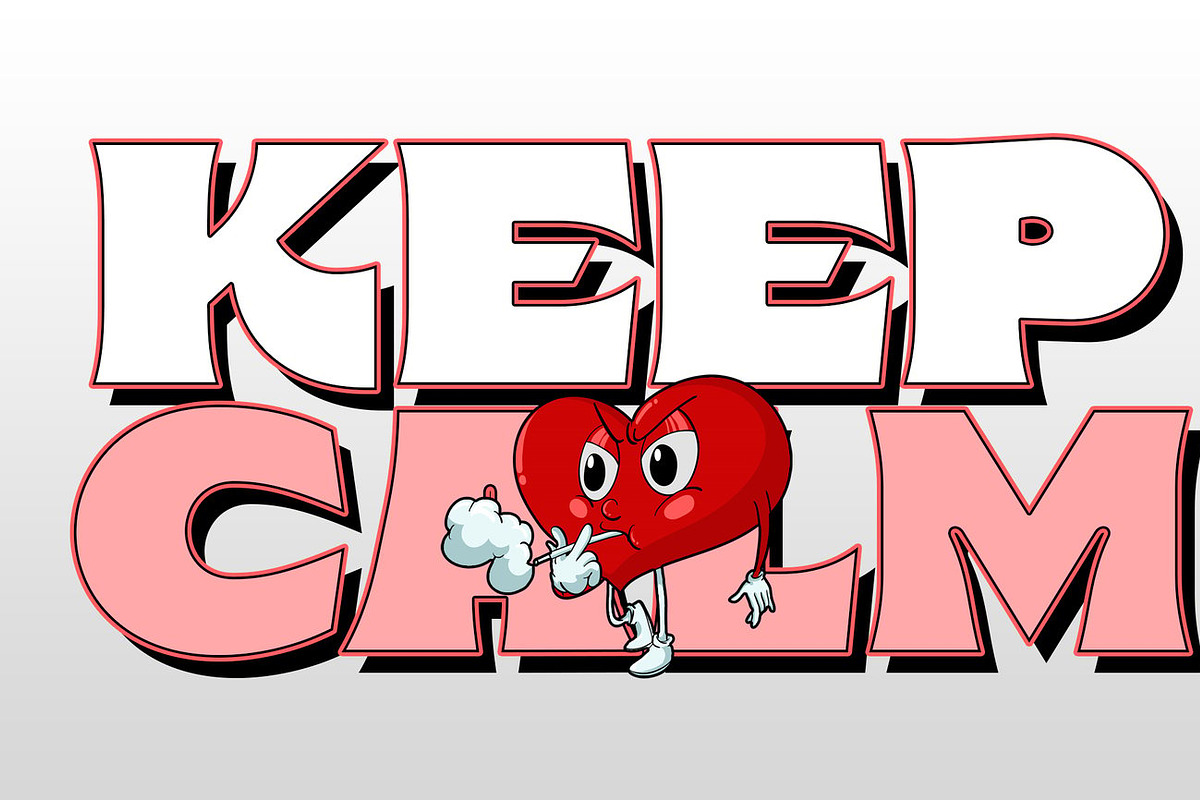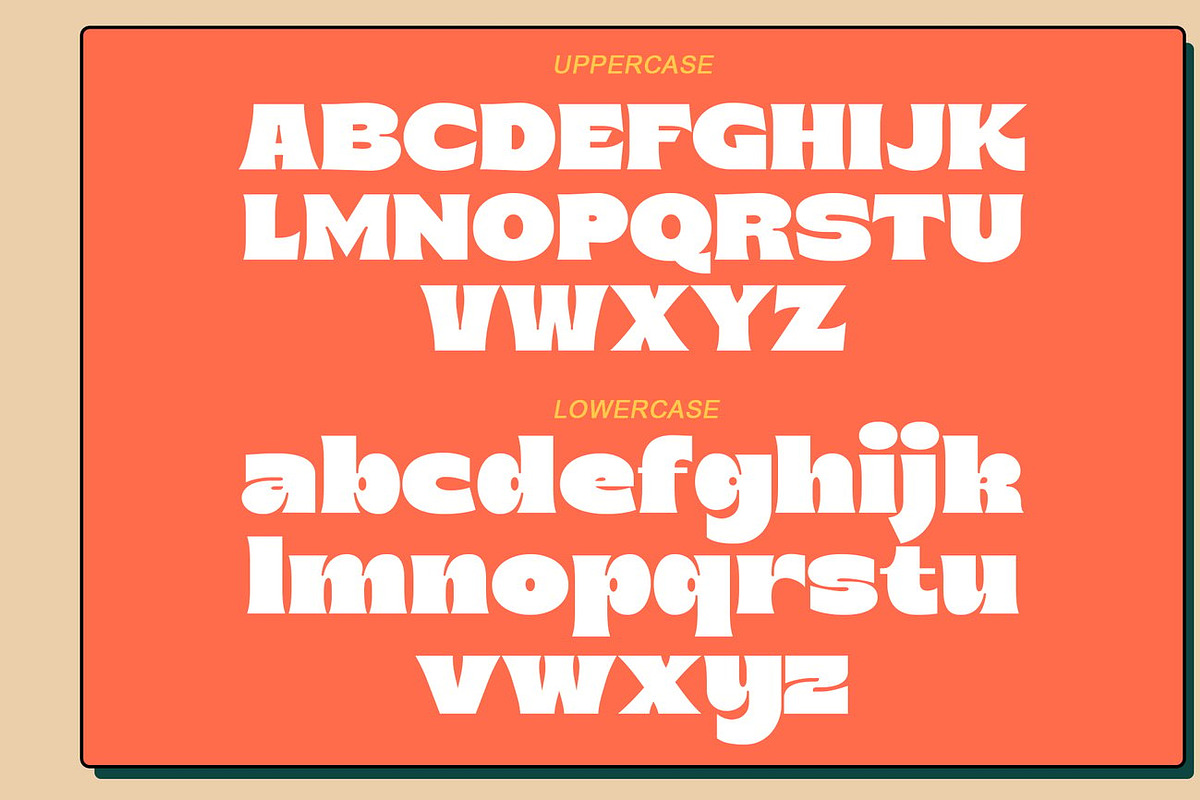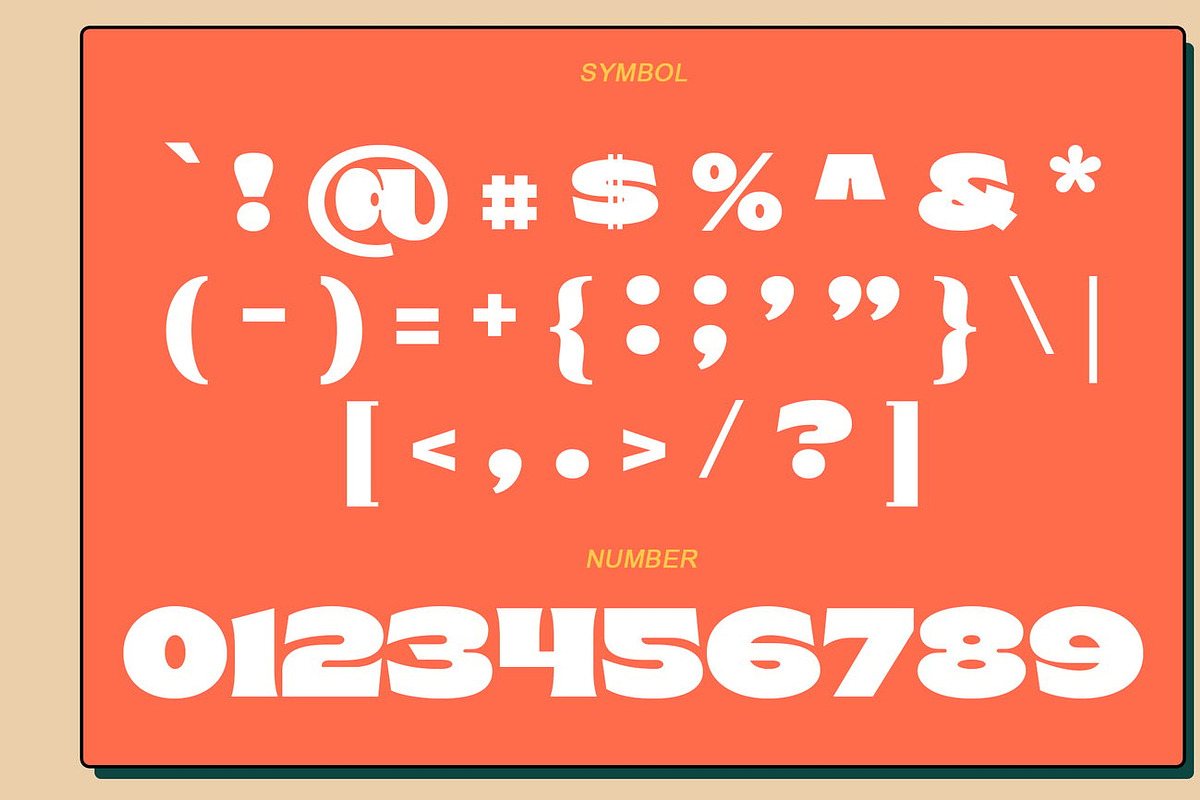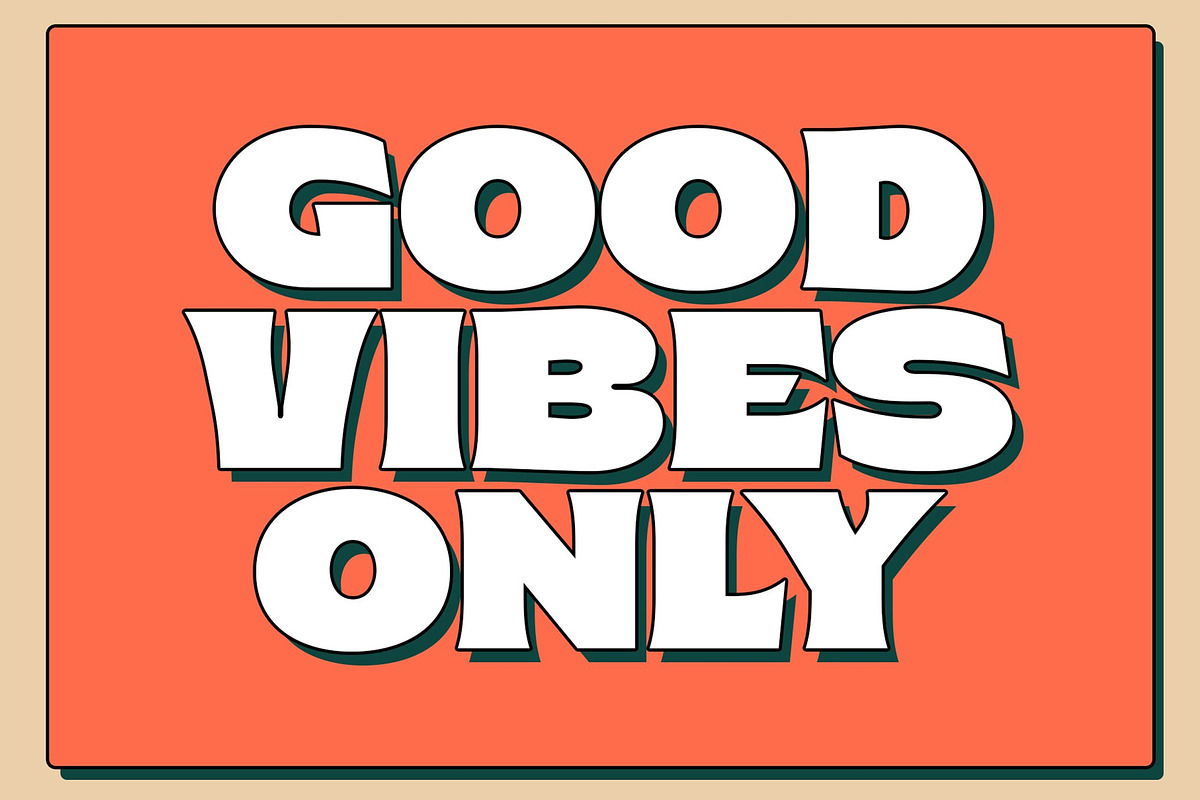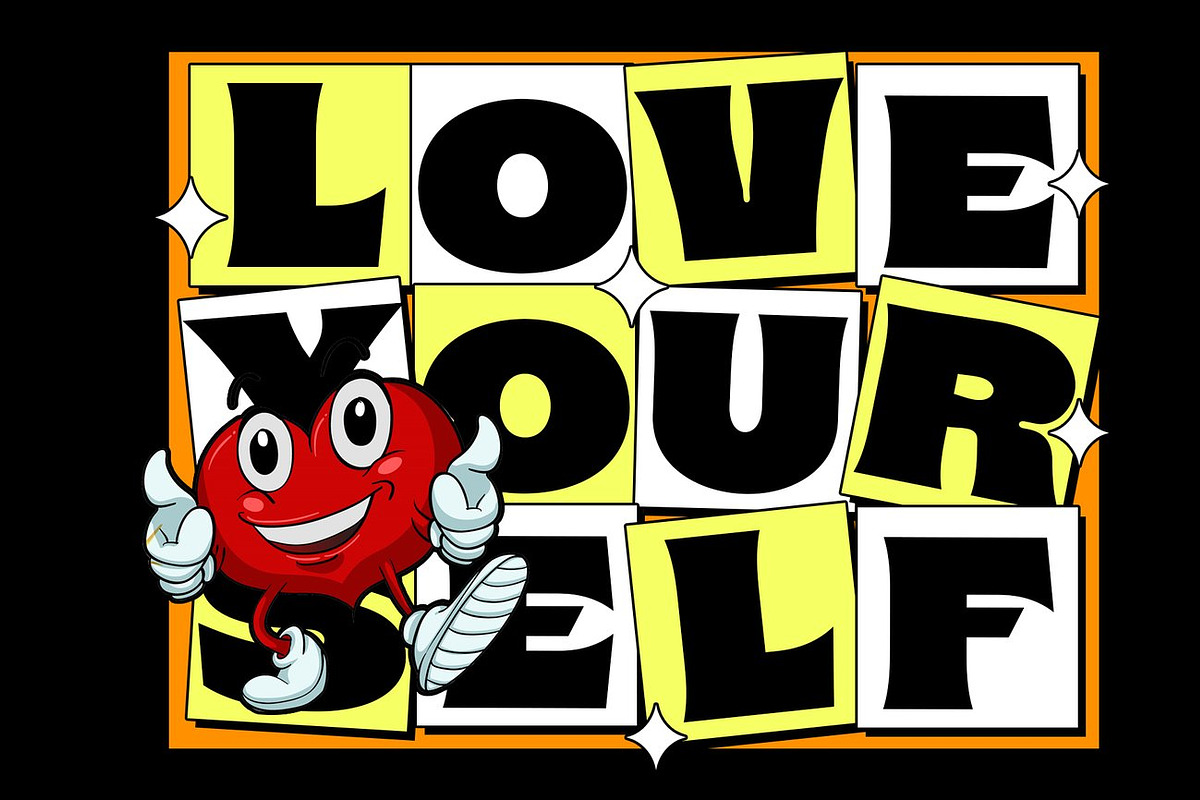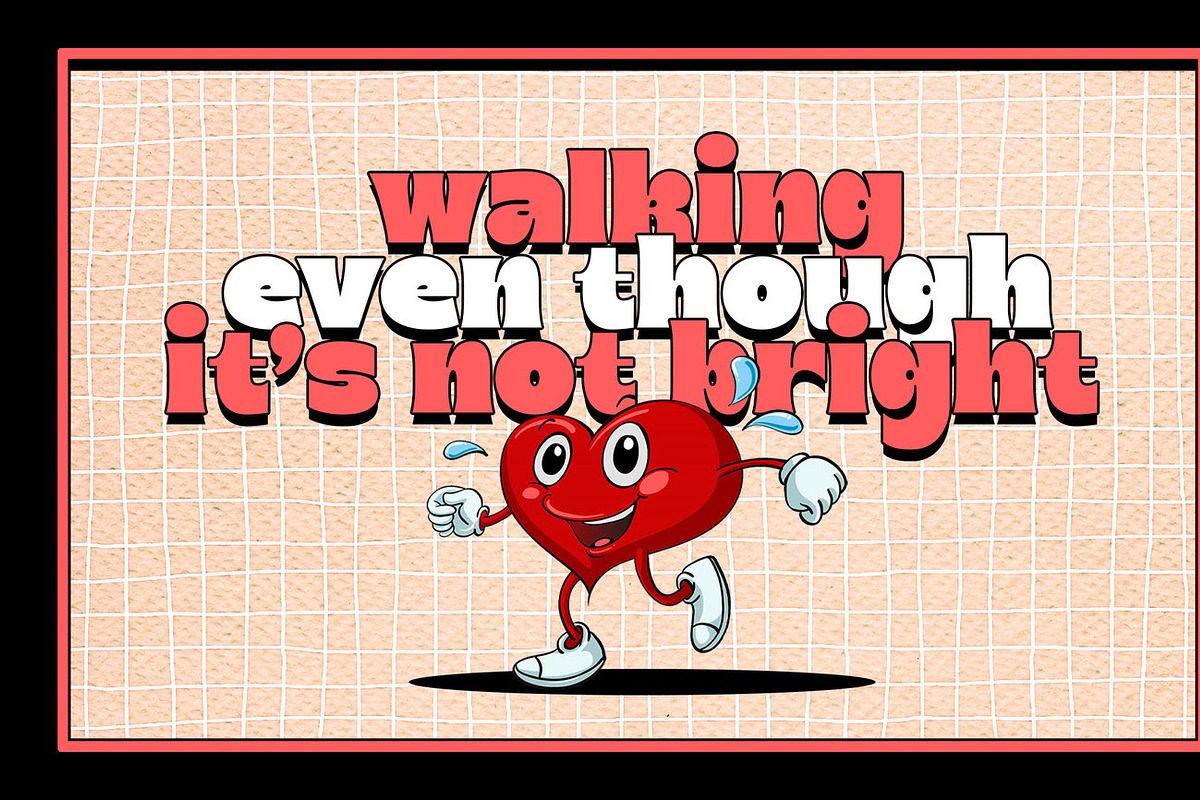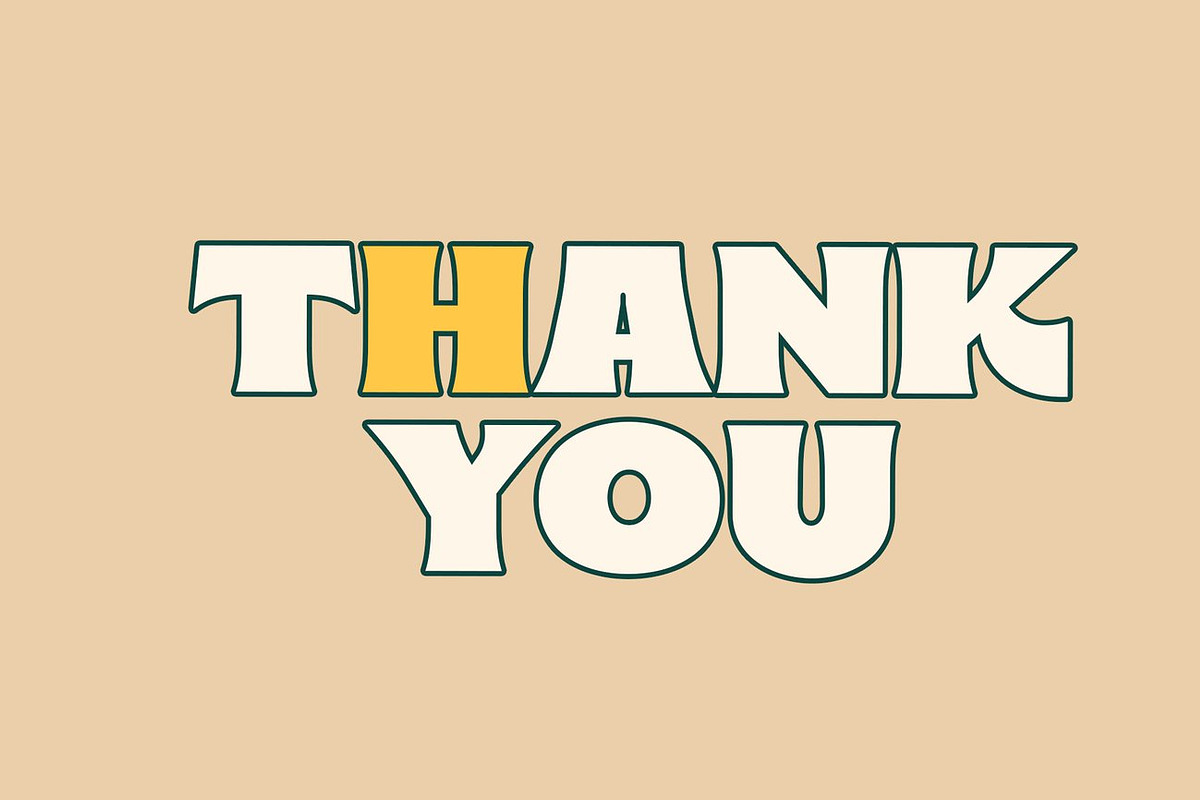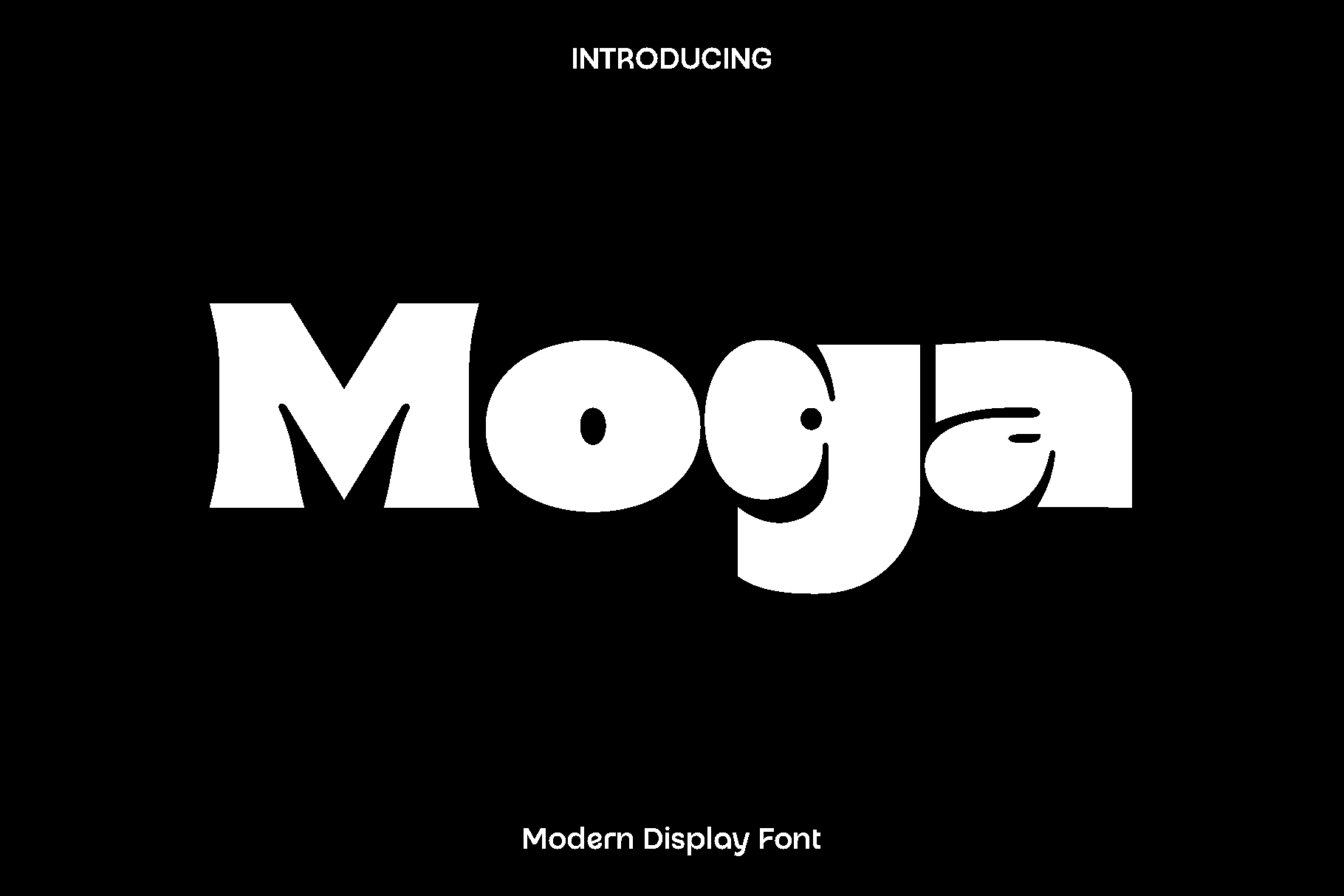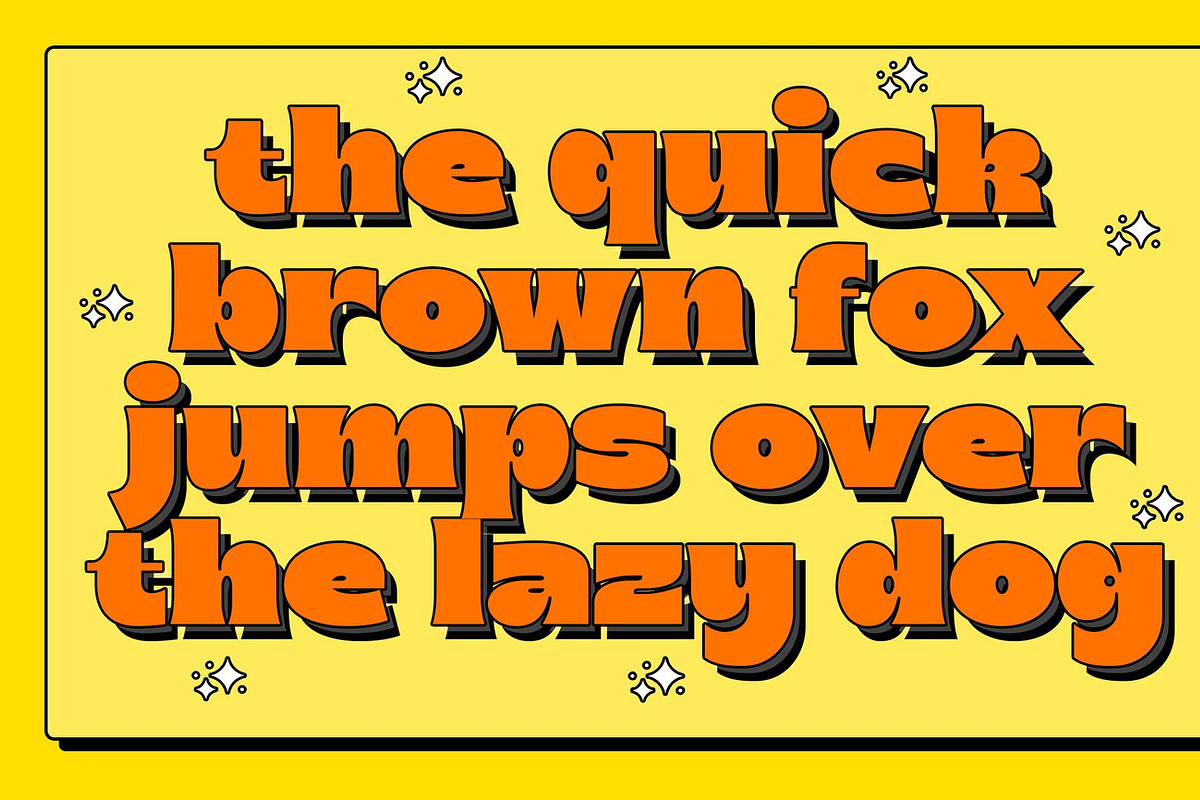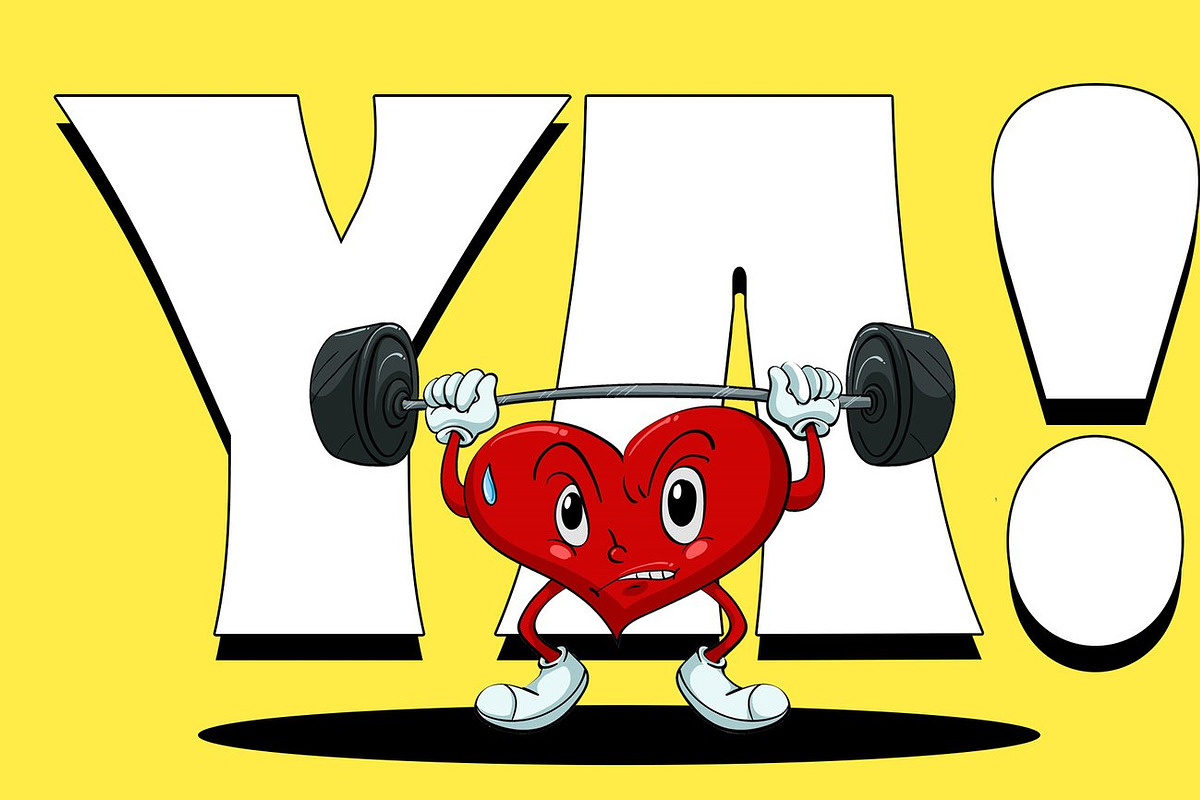
Moga - Modern Serif Font
Moga is a stylish and versatile font created to bring clarity, personality, and modern charm to a wide range of design projects. Designed with balance and visual flow in mind, Moga blends clean structure with expressive details, making every word feel confident and engaging. Its thoughtful design allows it to adapt beautifully across different creative needs, giving designers a reliable typeface that feels fresh and professional.
Moga shines in projects such as books, magazines, logos, branding identities, photography overlays, inspirational quotes, blog headers, posters, and advertising materials. Whether you are working on a bold headline or a subtle typographic accent, Moga delivers strong readability while adding a distinctive character that elevates your layout. It feels modern, creative, and approachable, making it suitable for both corporate and artistic designs.
Created for designers who value flexibility, Moga transitions seamlessly between digital and print applications. Its clean letterforms ensure your message stays clear, while its stylish personality helps your designs stand out in a crowded visual space. From editorial layouts to social media graphics, Moga becomes a dependable companion for projects that demand both beauty and functionality.
Moga Font Features:
• Clean and modern character style
• Unique punctuation, numbers, and symbols
• Uppercase and lowercase
• OpenType features
• Suitable for both print and digital design